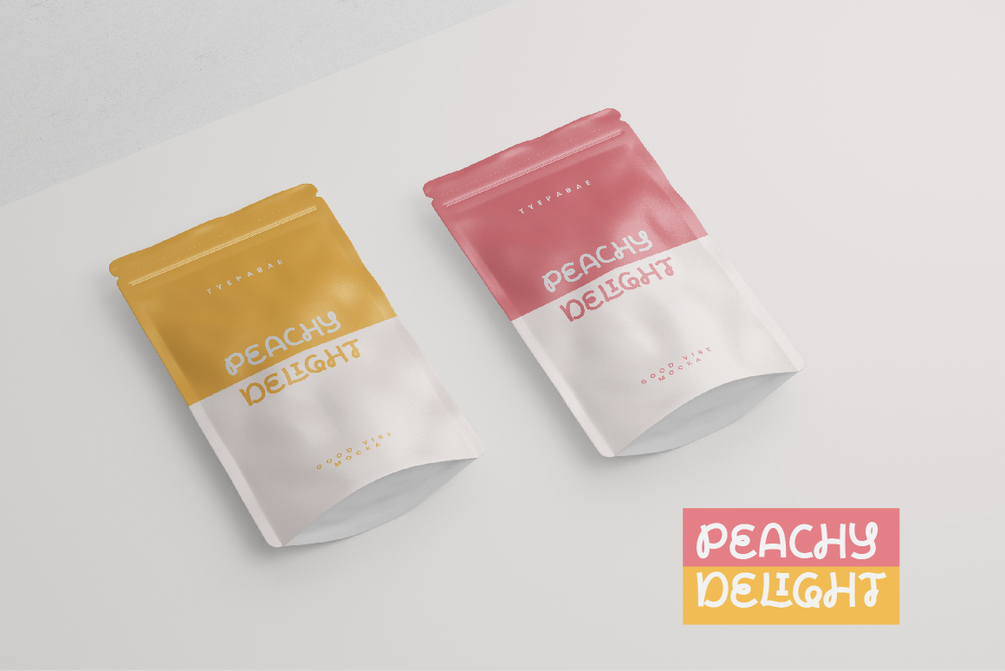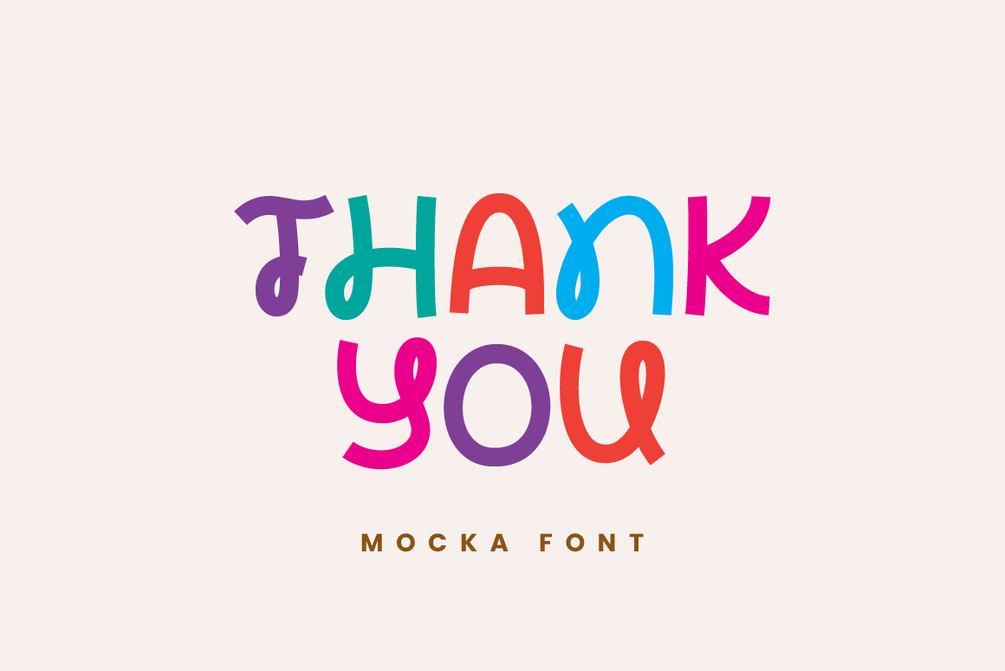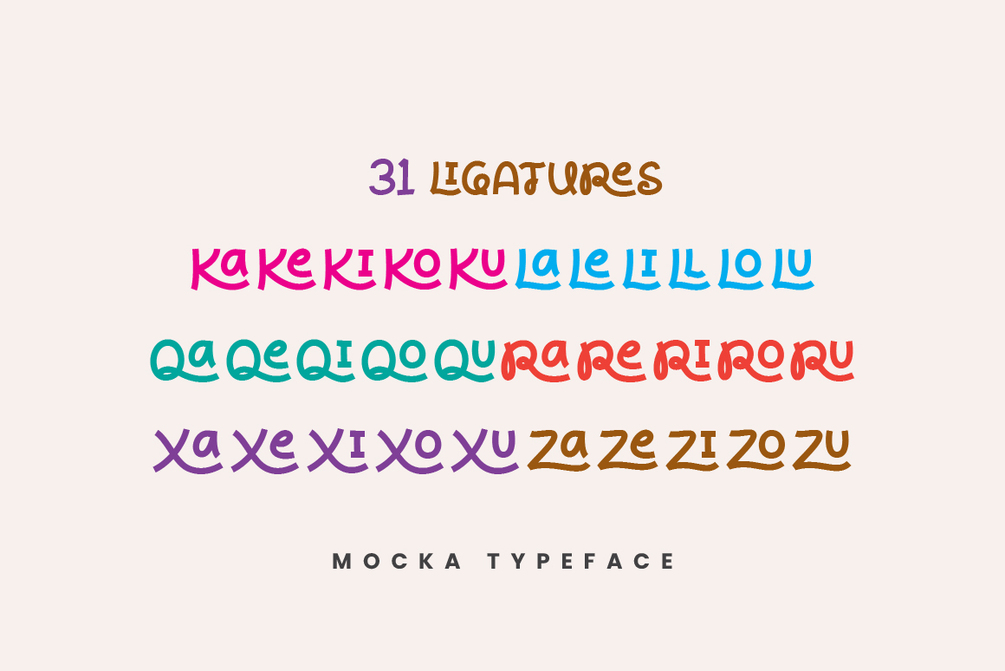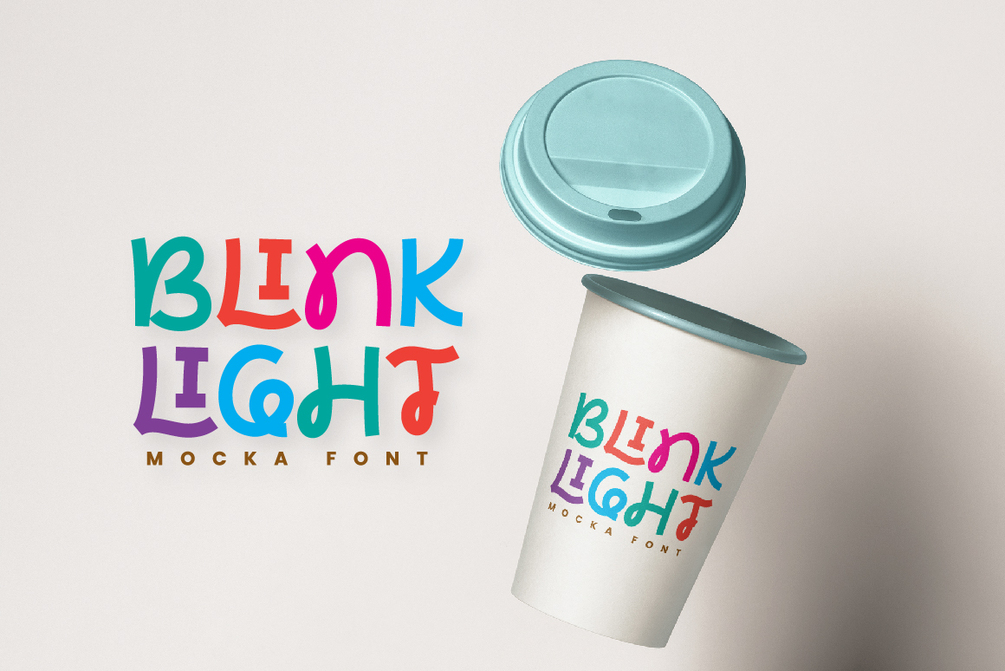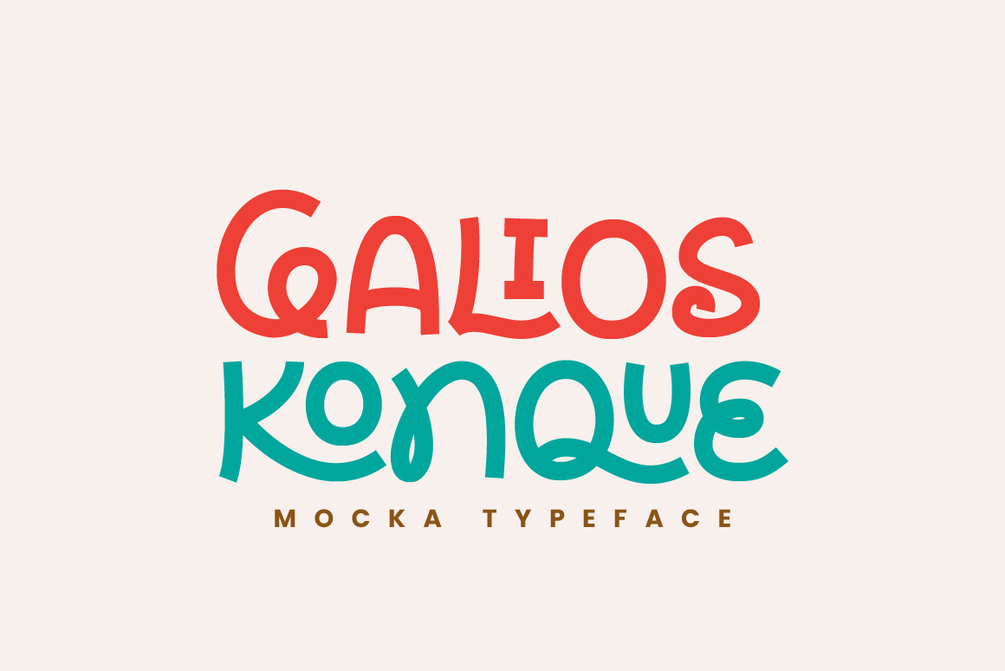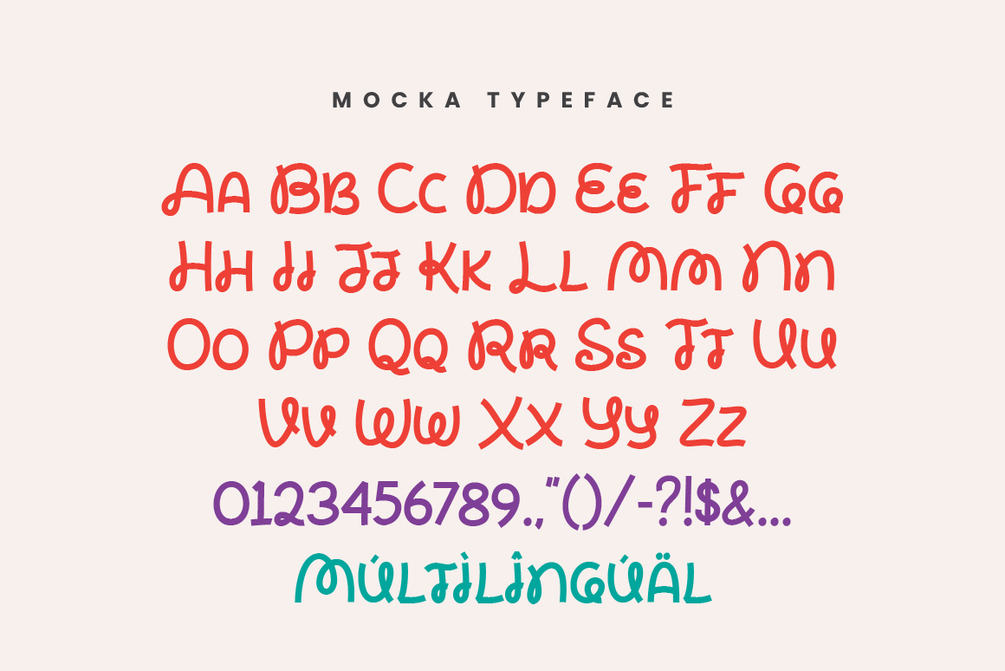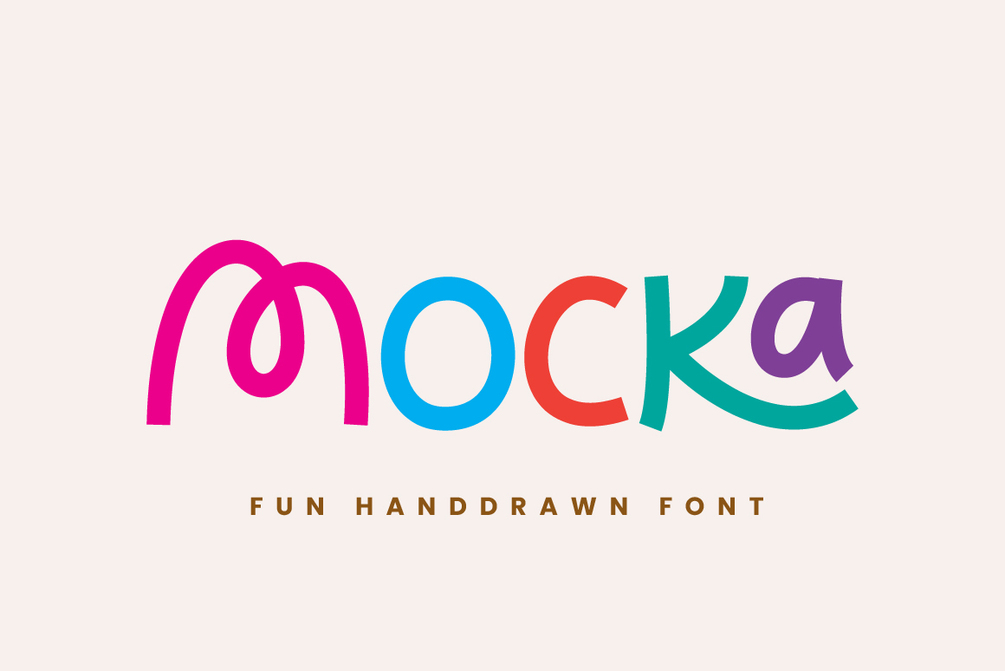
Mocka
Mocha is a playful hand-drawn font with unique ligatures that add a personal touch to any design. Ideal for invitations, branding, and custom stationery, its playful style and distinctive letterforms make it stand out. Perfect for bringing a handwritten, vibrant feel to your projects.
- 31 Ligatures
- Numeral & Punctuation
- PUA Encoded & Multilingual